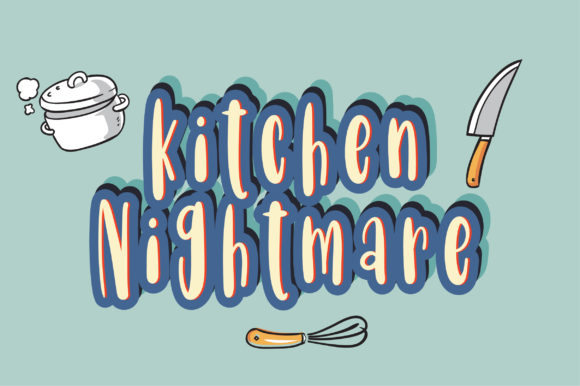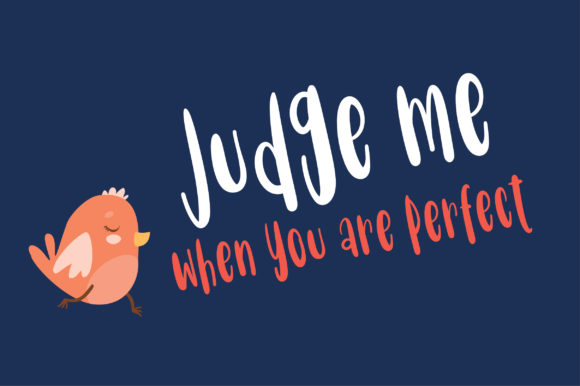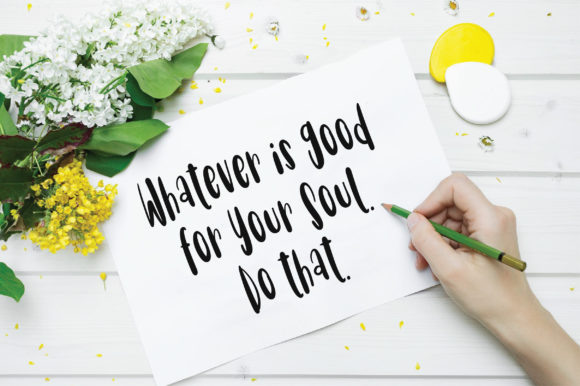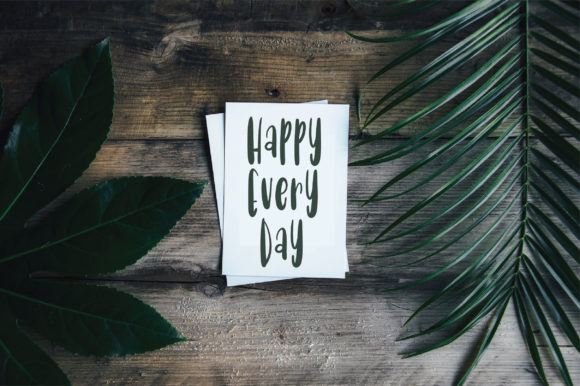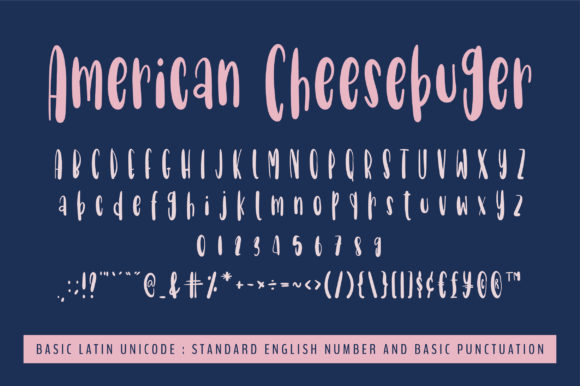
Introducing AmericanCheeseburger Font: Add a Cheerful Touch to Your Designs
Are you looking for a font that can bring a smile to your audience’s faces? Look no further than the AmericanCheeseburger Font! This delightful handwritten font is perfect for designers and crafters who want to add a cheerful and friendly touch to their projects. In this article, we’ll dive into the features and benefits of AmericanCheeseburger Font, and explore how you can use it to elevate your designs.
What is AmericanCheeseburger Font?
AmericanCheeseburger Font is a cheerful and friendly handwritten font that is designed to bring a happy personality to your designs. Its playful and carefree style makes it perfect for a wide range of projects, from illustrations and posters to logos and book covers. With its unique and charming lettering style, AmericanCheeseburger Font is sure to capture the attention of your audience and leave a lasting impression.
Key Features of AmericanCheeseburger Font
- Handwritten style: AmericanCheeseburger Font has a beautiful handwritten style that gives it a personal and friendly touch.
- Cheerful and playful: The font’s playful and cheerful style makes it perfect for designs that require a happy and upbeat personality.
- Versatile: AmericanCheeseburger Font can be used for a wide range of projects, from illustrations and posters to logos and book covers.
- Easy to read: Despite its playful style, AmericanCheeseburger Font is easy to read and understand, making it perfect for designs that require a clear and concise message.
Benefits of Using AmericanCheeseburger Font
So why should you use AmericanCheeseburger Font in your next project? Here are just a few benefits of using this delightful font:
- Add a personal touch: AmericanCheeseburger Font’s handwritten style gives your designs a personal and friendly touch that sets them apart from the rest.
- Create a happy personality: The font’s cheerful and playful style helps to create a happy personality for your brand or project.
- Stand out from the crowd: AmericanCheeseburger Font’s unique and charming lettering style makes it perfect for designs that require a distinctive and eye-catching look.
- Perfect for creative projects: AmericanCheeseburger Font is perfect for creative projects, such as illustrations, posters, and book covers, where a playful and cheerful style is required.
How to Use AmericanCheeseburger Font
Using AmericanCheeseburger Font in your next project is easy! Here are a few tips to get you started:
- Pair it with other fonts: AmericanCheeseburger Font pairs well with other fonts, such as sans-serif fonts, to create a unique and eye-catching look.
- Use it for headings and titles: AmericanCheeseburger Font is perfect for headings and titles, where a playful and cheerful style is required.
- Experiment with colors: AmericanCheeseburger Font looks great in a variety of colors, from bright and bold to pastel and soft.
In conclusion, AmericanCheeseburger Font is a delightful handwritten font that is perfect for designers and crafters who want to add a cheerful and friendly touch to their projects. With its playful and carefree style, AmericanCheeseburger Font is sure to capture the attention of your audience and leave a lasting impression. So why not give it a try and see how it can elevate your designs?
Whether you’re working on an illustration, poster, logo, or book cover, AmericanCheeseburger Font is the perfect choice. Its unique and charming lettering style, combined with its easy-to-read design, makes it perfect for a wide range of projects. So go ahead, include AmericanCheeseburger Font in your next project, and give it a happy personality!